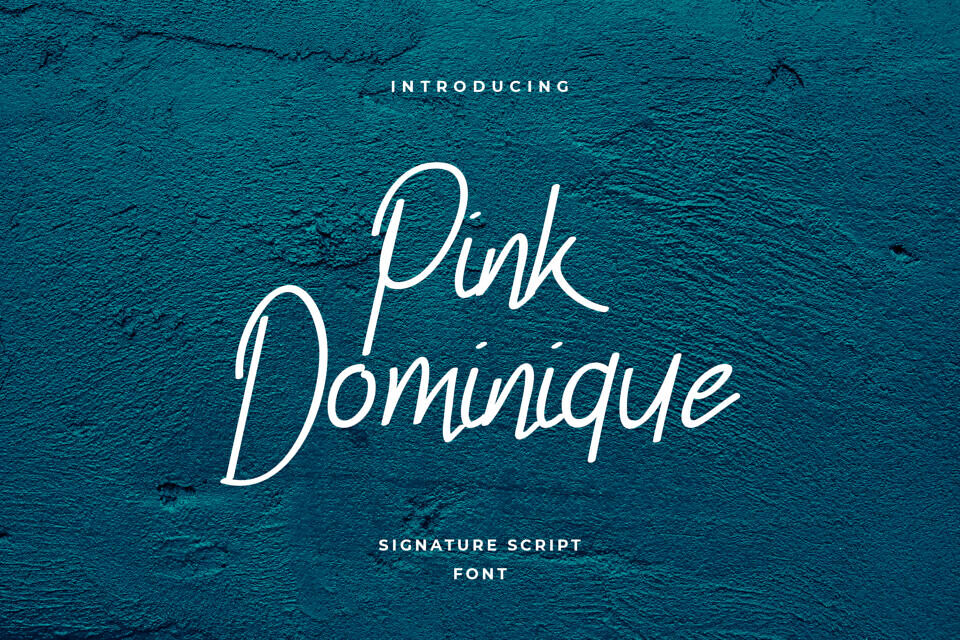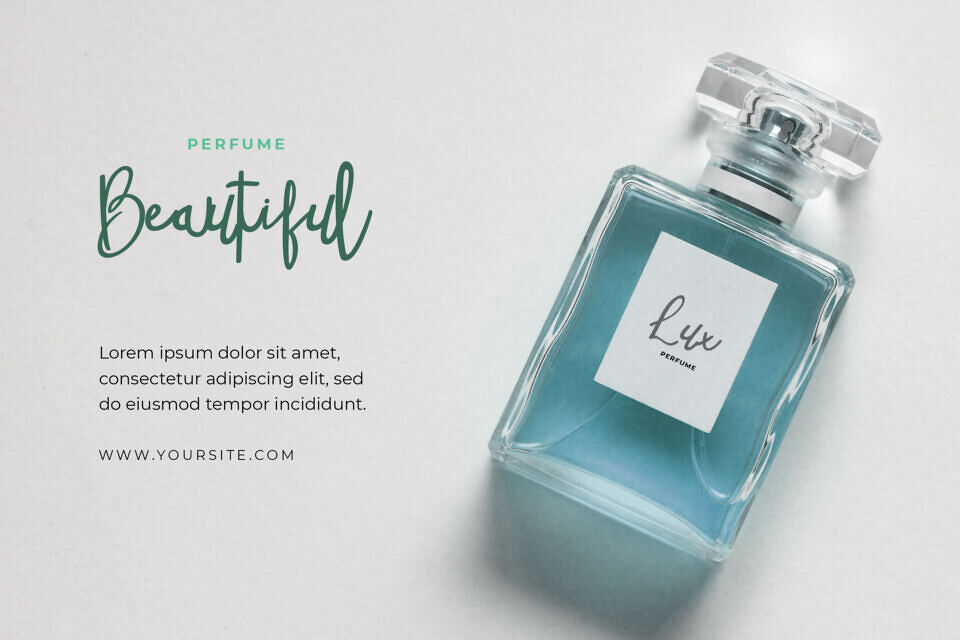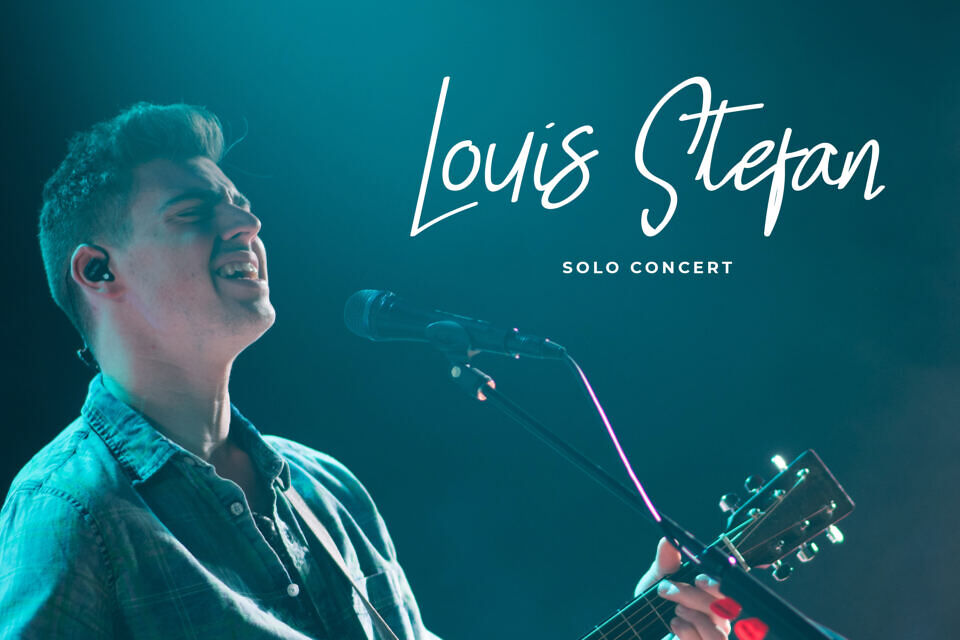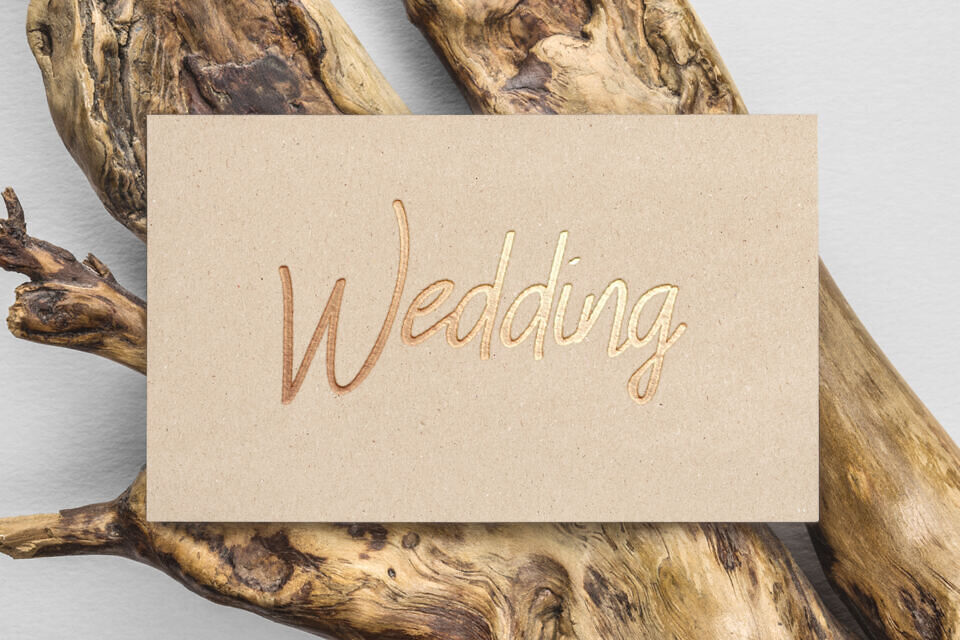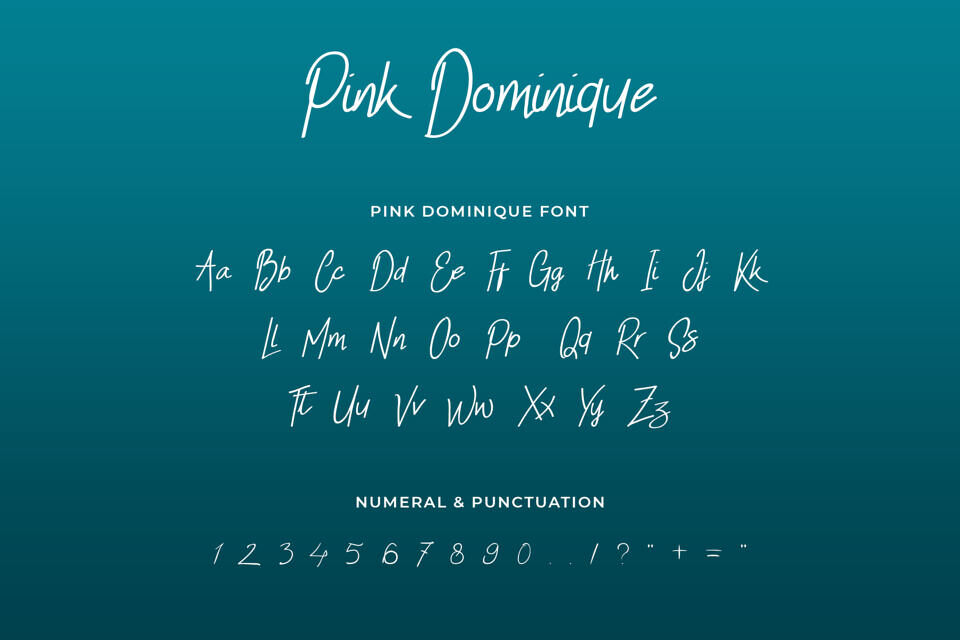
Pink Dominique Font
Pink Dominique is a modern script font that is readable, trendy and stylish. It is defined by smooth curves and is perfect for fashion branding or editorial designs. Add it confidently to your projects, and you will love the results.